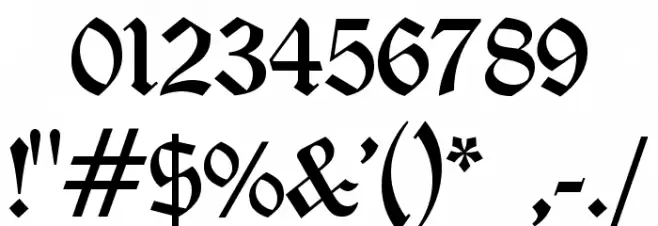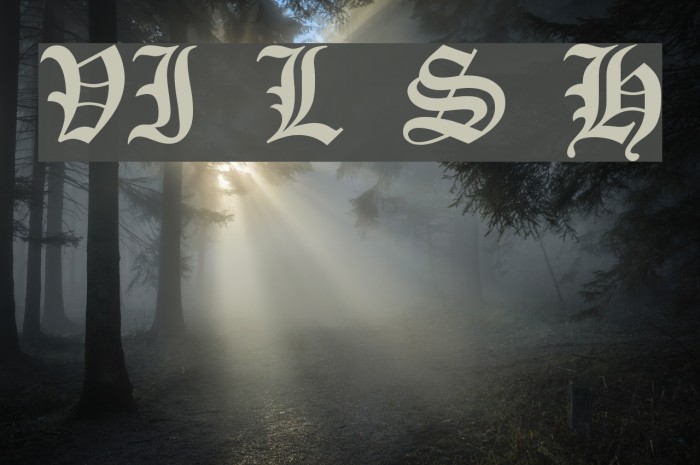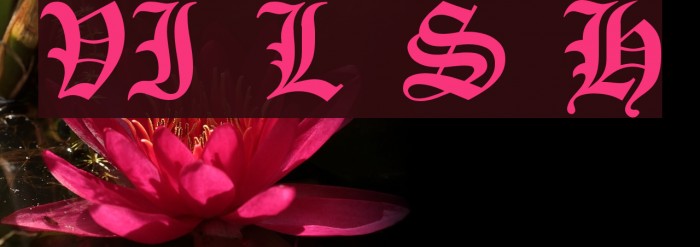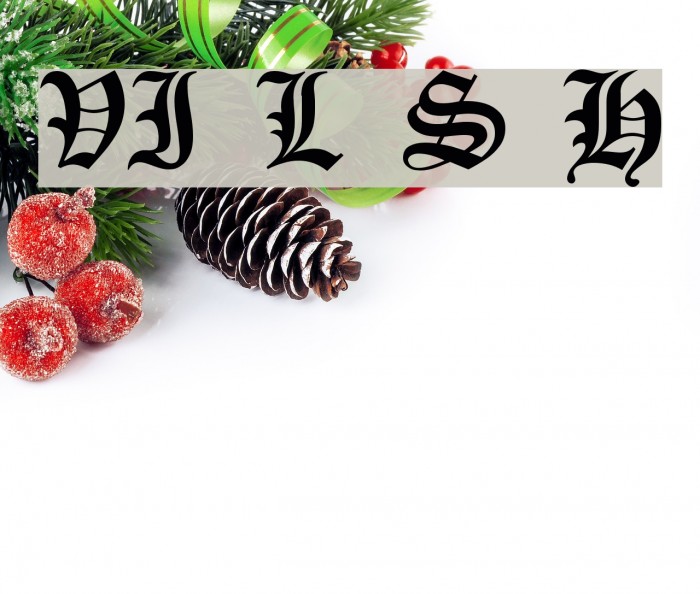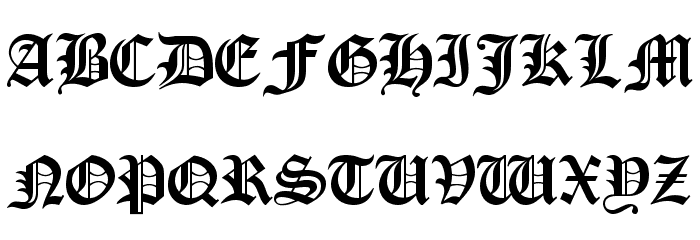
VI Lê Sa H Font
VI Lê Sa H Description
This font embodies the traditional elegance of Blackletter style, characterized by its intricate and ornate letterforms. The uppercase letters feature sharp, angular lines with decorative flourishes, giving them a distinct medieval appearance. The lowercase letters maintain the same stylistic elements, ensuring a cohesive look across all text. The numerals are bold and maintain the same decorative style, making them stand out while remaining consistent with the overall design. Special characters are equally ornate, adding a touch of sophistication to any text. This font is perfect for projects that require a historical or gothic aesthetic.
A traditional Blackletter font with ornate, medieval-style letterforms from Uncategorized fonts.
- Proposed Projects: Ideal for historical documents, gothic-themed designs, book covers, and event invitations.
- Overall Style: Vintage
- Use Case: Headlines, Logos, Decorative text